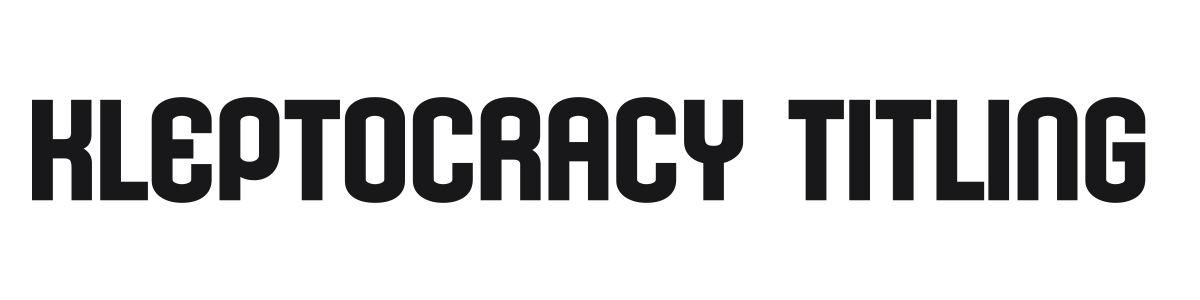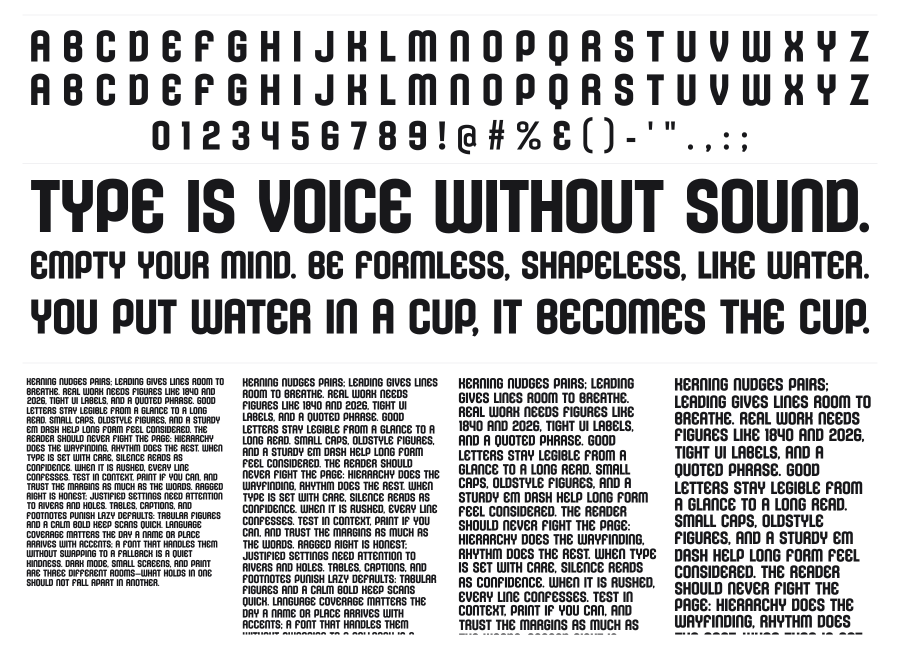
Kleptocracy Titling
Kleptocracy Titling is a heavy, condensed display face from Typodermic Fonts with uppercase-only letterforms built from dense, blocky geometry. The characters feel compressed and authoritative, with squared-off proportions that pack a lot of visual mass into tight horizontal space. A strong pick for headlines, posters, and branding where you need something that reads as both modern and unapologetically forceful.